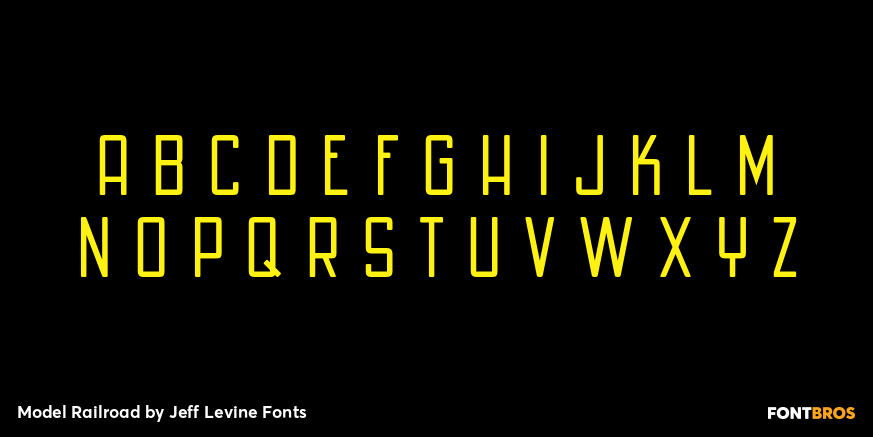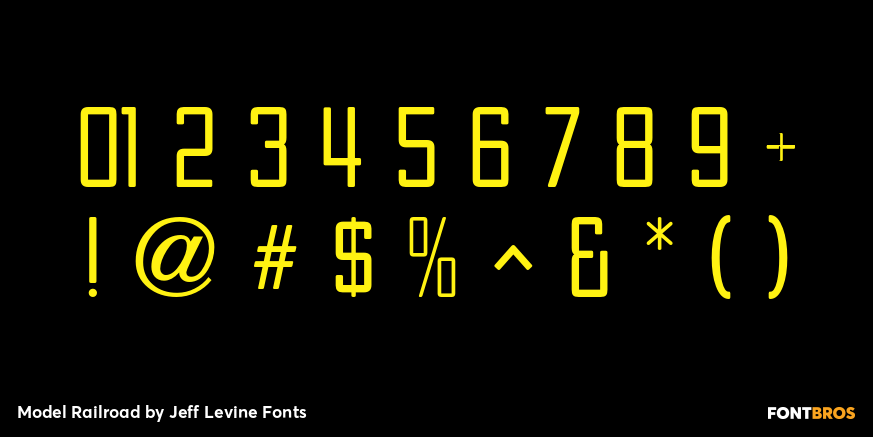
Model Railroad
The block style lettering with rounded corners found on a package for model railroad kit parts was the inspiration for Model Railroad JNL.